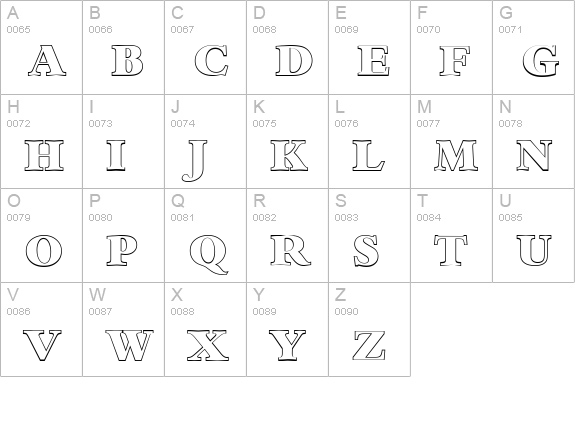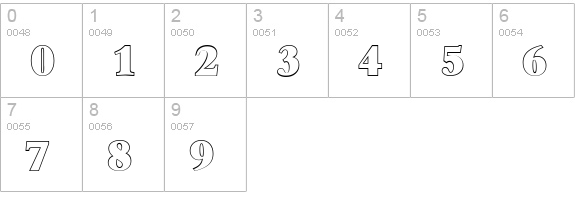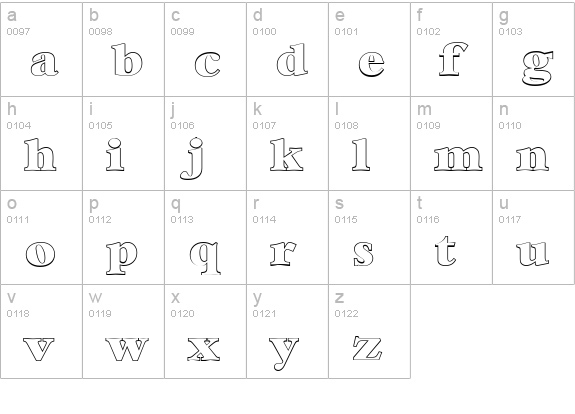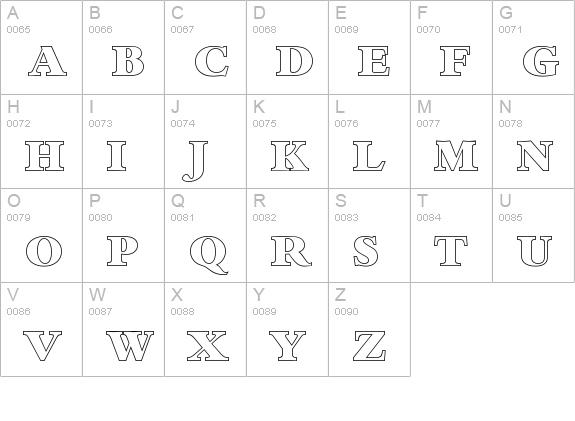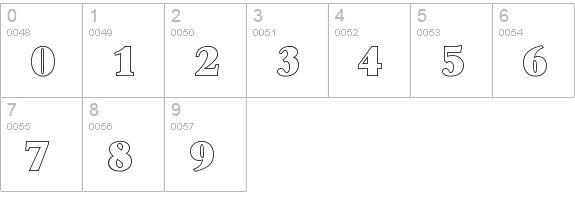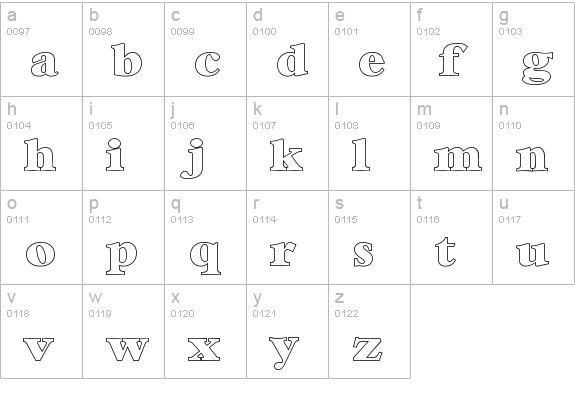
BernsteinOutline-Heavy-Regular Font Details
BernsteinOutline-Heavy-Regular is a heavy, high-impact variant in the BernsteinOutline typeface family \xE2\x80\x94 well suited to high-impact headlines, posters, and display advertising.
BernsteinOutline-Heavy-Regular font is a bold and striking typeface that exudes modernity and sophistication. With its clean lines and distinct outline, this font is perfect for making a statement in headlines, posters, and branding materials. The thick strokes of the characters give a sense of strength and stability, making it ideal for projects that require a strong visual impact. This font is not only visually appealing but also versatile, as it can be used in a variety of design contexts to add a touch of elegance and professionalism. Whether you are creating a logo, a website, or a print advertisement, BernsteinOutline-Heavy-Regular font will help you achieve a polished and refined look. Best of all, BernsteinOutline-Heavy-Regular font is completely free to download at FontsMarket.com. Take advantage of this opportunity to enhance your design projects with a high-quality font that is both aesthetically pleasing and easy to work with. Download it today and elevate your designs to the next level!